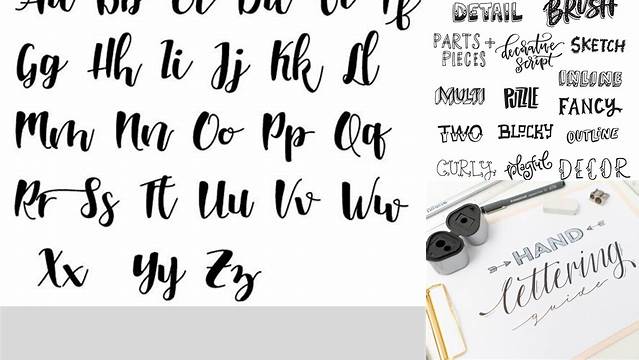
Lettering Styles & Fonts: A Comprehensive Guide
Hey guys! Ever wondered about the difference between lettering styles and fonts? Or maybe you're just looking to spice up your design game? Well, you've come to the right place! This comprehensive guide will break down different types of lettering styles and fonts, giving you the knowledge to choose the perfect one for your next project. Let's dive in!
1. Understanding the Basics of Lettering
Okay, so before we jump into the cool stuff, let's nail down the basics. Lettering, at its core, is the art of drawing letters. It's a unique piece of art where each letter is carefully crafted. Think of it as illustration, but with letters! A lettering artist pays attention to every detail, from the thickness of the strokes to the overall composition. Unlike fonts, which are pre-designed and reusable, lettering is a one-off creation. When approaching lettering, consider the message you want to convey. Is it playful? Serious? Elegant? The style of lettering should reflect the tone. Experiment with different tools like pencils, pens, brushes, or even digital drawing tablets. Practice consistency in your letterforms, but don't be afraid to break the rules and add your own personal flair. Lettering offers endless possibilities for creativity and self-expression, so embrace the process and have fun!
2. Exploring Different Font Styles
Now, let's talk about fonts! Font styles, unlike lettering, are pre-designed sets of characters that can be used repeatedly. They're like a ready-made alphabet that you can type with. Fonts come in countless styles, from classic serif fonts to modern sans-serif fonts, and everything in between. Understanding different font styles is crucial for effective communication. Serif fonts, with their little decorative strokes, often convey a sense of tradition and authority. Sans-serif fonts, on the other hand, are clean and modern, making them ideal for digital displays. When choosing a font, consider its readability, especially for body text. Experiment with different font pairings to create visual interest and hierarchy. A good rule of thumb is to pair a serif font with a sans-serif font for a balanced look. With so many options available, exploring different font styles can be overwhelming, but with practice, you'll develop an eye for choosing the perfect font for any project.
3. Serif Fonts: Timeless Elegance
Serif fonts are those classic typefaces with the little feet or strokes at the end of each letter. Think Times New Roman or Garamond. These fonts often evoke a sense of tradition, authority, and elegance. They're commonly used in books, newspapers, and other print materials. Within the serif fonts category, there are several sub-categories to explore. Old-style serifs, like Garamond, have a more organic and hand-drawn feel. Transitional serifs, like Times New Roman, offer a balance between tradition and modernity. Modern serifs, like Didot, are characterized by their high contrast and sharp serifs. When choosing serif fonts, consider the overall tone and purpose of your design. A classic serif font can add a touch of sophistication to a formal invitation, while a more playful serif font can be used for a children's book. Experiment with different serif fonts to find the perfect one for your project. Remember, the key is to choose a font that is both visually appealing and easy to read.
4. Sans-Serif Fonts: Modern Simplicity
On the flip side, we have sans-serif fonts, which are clean, modern, and lack those little decorative strokes. Think Arial or Helvetica. These fonts are often associated with simplicity, clarity, and a contemporary feel. They're commonly used in websites, logos, and other digital designs. Just like serif fonts, sans-serif fonts come in various styles. Geometric sans-serifs, like Futura, are based on precise geometric shapes. Humanist sans-serifs, like Gill Sans, have a more organic and hand-drawn feel. Grotesque sans-serifs, like Helvetica, are known for their neutral and versatile appearance. When selecting sans-serif fonts, prioritize readability, especially for body text on screens. A clean and legible sans-serif font can improve the user experience on a website or app. Experiment with different sans-serif fonts to find the perfect one for your project. Remember, a well-chosen sans-serif font can convey a sense of professionalism and modernity.
5. Script Fonts: Calligraphy and Handwriting
Script fonts mimic the fluidity and elegance of handwriting or calligraphy. They range from formal and ornate to casual and playful. Think of fonts that look like cursive writing. Script fonts can add a touch of personality and charm to your designs. However, they should be used sparingly, as they can be difficult to read in large blocks of text. There are several types of script fonts to choose from, including formal scripts, brush scripts, and casual scripts. Formal scripts are often used for wedding invitations and other elegant occasions. Brush scripts have a more textured and hand-painted feel. Casual scripts are perfect for adding a touch of whimsy to your designs. When using script fonts, make sure they are legible and appropriate for the overall tone of your project. Consider using them for headings or short phrases to add visual interest. With the right script font, you can create a unique and memorable design.
6. Display Fonts: Bold and Eye-Catching
Display fonts are designed to grab attention and make a statement. They're often used for headlines, logos, and other prominent design elements. Display fonts come in a wide variety of styles, from bold and blocky to quirky and unconventional. The key is to choose a display font that reflects the personality of your brand or project. When selecting display fonts, don't be afraid to experiment with different styles and weights. A bold and impactful display font can instantly draw the viewer's eye. However, be mindful of readability, especially at smaller sizes. Display fonts should be used sparingly and paired with a more legible font for body text. With the right display font, you can create a memorable and impactful design that stands out from the crowd. Remember to consider the overall aesthetic and message you want to convey when choosing a display font.
7. Blackletter Fonts: Gothic and Medieval
Blackletter fonts, also known as Gothic or Old English fonts, evoke a sense of history and tradition. They're characterized by their thick strokes, sharp angles, and ornate details. Blackletter fonts were commonly used in medieval manuscripts and early printed books. Today, they're often used for decorative purposes, such as logos, posters, and certificates. While blackletter fonts can add a touch of elegance and sophistication, they can also be difficult to read. Therefore, they should be used sparingly and in larger sizes. When using blackletter fonts, consider the historical context and the overall tone of your design. A blackletter font can be a great choice for a project that aims to evoke a sense of tradition or authenticity. However, it's important to ensure that the font is legible and appropriate for the target audience. With careful consideration, blackletter fonts can add a unique and memorable touch to your designs.
8. Monospace Fonts: Typewriter Style
Monospace fonts are unique because each character takes up the same amount of horizontal space. This creates a distinctive, typewriter-like appearance. Monospace fonts were originally designed for typewriters and computer terminals, where consistent character width was essential. Today, they're often used for code, technical documentation, and retro-themed designs. While monospace fonts may not be the most visually appealing for large blocks of text, they can be effective for creating a sense of order and precision. When using monospace fonts, consider the context and the overall message you want to convey. A monospace font can be a great choice for a project that aims to evoke a sense of technology or authenticity. However, it's important to ensure that the font is legible and appropriate for the target audience. With careful consideration, monospace fonts can add a unique and functional touch to your designs.
9. Handwritten Fonts: Personal Touch
Handwritten fonts bring a personal and informal touch to any design. These fonts mimic the look of actual handwriting, adding warmth and authenticity. They range from neat and legible to messy and whimsical, offering a variety of styles to suit different projects. Handwritten fonts are perfect for invitations, greeting cards, and designs that need a human touch. The key to using handwritten fonts effectively is to ensure readability. While a bit of imperfection can add charm, the font should still be easy to read. Consider using handwritten fonts for headings or short phrases to add visual interest. Pair them with a simpler, more legible font for the main body of text. Experiment with different handwritten fonts to find one that matches the tone and style of your project. With the right choice, you can create a design that feels personal and inviting.
10. Decorative Fonts: Unique and Artistic
Decorative fonts are all about making a statement. These fonts are designed to be eye-catching and unique, often incorporating elaborate designs and artistic elements. Decorative fonts can transform a simple design into something truly special, adding personality and flair. However, they should be used sparingly, as they can be overwhelming if overused. Decorative fonts are perfect for headlines, posters, and designs that need to stand out. When choosing a decorative font, consider the overall style and message of your project. A whimsical font might be great for a children's book, while a bold and geometric font could work well for a modern poster. Always prioritize readability, even with decorative fonts. The font should be legible enough to convey the message clearly. Pair decorative fonts with simpler fonts for the body text to balance the design. With careful selection, decorative fonts can add a unique and artistic touch to your creations.
11. Vintage Fonts: Retro Charm
Vintage fonts are designed to evoke the look and feel of past eras. These fonts draw inspiration from different historical periods, such as the Art Deco era, the mid-century modern period, and the Victorian era. Vintage fonts add a touch of nostalgia and retro charm to any design. They are perfect for projects that aim to capture a specific historical aesthetic. Vintage fonts come in a variety of styles, from elegant and ornate to bold and industrial. When choosing a vintage font, consider the specific era you want to emulate. Research popular typefaces from that period and look for fonts that capture the same essence. Pay attention to details such as serifs, stroke weight, and overall letterforms. Vintage fonts can be used for logos, posters, websites, and any project that needs a retro touch. Pair them with vintage-inspired colors and design elements to create a cohesive and authentic look. With the right vintage font, you can transport your audience back in time.
12. Modern Fonts: Sleek and Minimalist
Modern fonts are characterized by their clean lines, geometric shapes, and minimalist design. These fonts are often sans-serif, meaning they lack the small decorative strokes found in serif fonts. Modern fonts convey a sense of simplicity, sophistication, and innovation. They are perfect for projects that aim to project a contemporary and forward-thinking image. Modern fonts are widely used in logos, websites, and branding materials. They are versatile and can be adapted to a variety of design styles. When choosing a modern font, consider the overall aesthetic of your project. Look for fonts that are legible, balanced, and visually appealing. Experiment with different weights and styles to find the perfect fit. Modern fonts pair well with clean layouts, minimalist designs, and bold colors. With the right modern font, you can create a design that is both stylish and functional.
13. Calligraphy Fonts: Elegant Script
Calligraphy fonts are designed to mimic the elegant and flowing strokes of traditional calligraphy. These fonts are often used for invitations, wedding announcements, and other formal occasions. Calligraphy fonts add a touch of sophistication and grace to any design. They are characterized by their ornate letterforms, delicate strokes, and flourishes. Calligraphy fonts come in a variety of styles, from traditional copperplate to modern brush lettering. When choosing a calligraphy font, consider the overall tone and style of your project. Look for fonts that are legible, balanced, and visually appealing. Avoid using calligraphy fonts for large blocks of text, as they can be difficult to read. Instead, use them for headings, titles, and short phrases. Pair calligraphy fonts with simpler fonts for the body text to create a balanced and harmonious design. With the right calligraphy font, you can add a touch of elegance and sophistication to your creations.
14. Brush Lettering Fonts: Hand-Painted Style
Brush lettering fonts capture the organic and textured look of hand-painted lettering. These fonts are created by mimicking the strokes of a brush pen or paintbrush. Brush lettering fonts add a personal and artistic touch to any design. They are perfect for projects that need a handmade or artisanal feel. Brush lettering fonts come in a variety of styles, from bold and expressive to delicate and refined. When choosing a brush lettering font, consider the overall style and message of your project. Look for fonts that are legible, authentic, and visually appealing. Avoid using brush lettering fonts for large blocks of text, as they can be difficult to read. Instead, use them for headings, logos, and short phrases. Pair brush lettering fonts with simpler fonts for the body text to create a balanced and harmonious design. With the right brush lettering font, you can add a unique and artistic touch to your creations.
15. Slab Serif Fonts: Bold and Strong
Slab serif fonts are characterized by their thick, block-like serifs. These fonts are bold, strong, and convey a sense of authority and stability. Slab serif fonts were originally developed for advertising and display purposes in the 19th century. They are often used for headlines, posters, and branding materials. Slab serif fonts come in a variety of styles, from classic and traditional to modern and geometric. When choosing a slab serif font, consider the overall tone and style of your project. Look for fonts that are legible, impactful, and visually appealing. Slab serif fonts pair well with both serif and sans-serif fonts, depending on the desired effect. They can be used to create a bold and eye-catching design that commands attention. With the right slab serif font, you can make a strong and lasting impression.
16. Geometric Fonts: Precision and Order
Geometric fonts are based on precise geometric shapes such as circles, squares, and triangles. These fonts are clean, modern, and convey a sense of order and precision. Geometric fonts are often used in logos, websites, and branding materials that aim to project a sense of innovation and sophistication. Geometric fonts come in a variety of styles, from minimalist and understated to bold and expressive. When choosing a geometric font, consider the overall aesthetic of your project. Look for fonts that are legible, balanced, and visually appealing. Geometric fonts pair well with clean layouts, minimalist designs, and bold colors. They can be used to create a design that is both stylish and functional. With the right geometric font, you can achieve a sleek and contemporary look.
17. Distressed Fonts: Worn and Aged
Distressed fonts are designed to look worn, aged, and imperfect. These fonts often feature textures, scratches, and other imperfections that give them a vintage or grunge aesthetic. Distressed fonts are perfect for projects that need a touch of authenticity, nostalgia, or raw energy. They are often used in posters, t-shirts, and branding materials that aim to convey a sense of history or rebellion. Distressed fonts come in a variety of styles, from subtle and understated to bold and exaggerated. When choosing a distressed font, consider the overall tone and style of your project. Look for fonts that are legible, visually appealing, and appropriate for the target audience. Distressed fonts pair well with vintage-inspired colors, textures, and design elements. With the right distressed font, you can create a design that is both unique and memorable.
18. Pixel Fonts: Retro Gaming Style
Pixel fonts, also known as bitmap fonts, are designed to mimic the look of text on early computer screens and video games. These fonts are characterized by their blocky, pixelated appearance. Pixel fonts are perfect for projects that aim to evoke a sense of nostalgia for the 8-bit and 16-bit era. They are often used in video games, retro-themed websites, and designs that pay homage to classic computer graphics. Pixel fonts come in a variety of styles, from simple and functional to decorative and expressive. When choosing a pixel font, consider the overall style and message of your project. Look for fonts that are legible, authentic, and visually appealing. Pixel fonts can be used for headings, body text, and other design elements. They pair well with retro-inspired colors, graphics, and sound effects. With the right pixel font, you can transport your audience back to the golden age of gaming.
19. Outline Fonts: Minimalist Design
Outline fonts feature characters that are defined by their outlines, with the interior space left empty. These fonts are minimalist, modern, and convey a sense of simplicity and elegance. Outline fonts are often used in logos, websites, and branding materials that aim to project a clean and sophisticated image. Outline fonts come in a variety of styles, from geometric and angular to rounded and organic. When choosing an outline font, consider the overall aesthetic of your project. Look for fonts that are legible, balanced, and visually appealing. Outline fonts pair well with bold colors, clean layouts, and minimalist designs. They can be used to create a design that is both stylish and functional. With the right outline font, you can achieve a sleek and contemporary look.
20. Shadow Fonts: Depth and Dimension
Shadow fonts create the illusion of depth and dimension by adding a shadow effect to the characters. These fonts can be used to make text stand out and create a sense of visual interest. Shadow fonts are often used in headlines, posters, and branding materials that aim to grab attention. Shadow fonts come in a variety of styles, from subtle and understated to bold and dramatic. When choosing a shadow font, consider the overall tone and style of your project. Look for fonts that are legible, visually appealing, and appropriate for the target audience. Shadow fonts pair well with contrasting colors and simple backgrounds. They can be used to create a design that is both eye-catching and impactful. With the right shadow font, you can add depth and dimension to your creations.
21. Combining Lettering and Fonts
One of the best ways to create unique and visually appealing designs is by combining lettering and fonts. Lettering, being a hand-drawn art form, brings a personal and bespoke touch, while fonts offer consistency and readability. When combining lettering and fonts, consider using lettering for headlines or short phrases to add a distinctive flair, and then use a clean and legible font for the body text. This approach creates a balanced and harmonious design. The key is to choose fonts that complement the style of your lettering. For example, if your lettering is whimsical and playful, you might pair it with a simple sans-serif font. If your lettering is elegant and formal, you might choose a classic serif font. Experiment with different combinations to find what works best for your project. With careful planning and a good eye for design, you can create stunning designs by combining lettering and fonts.
22. Choosing the Right Font for Your Project
Choosing the right font for your project is a critical step in the design process. The font you select can significantly impact the overall look and feel of your design, as well as its readability and effectiveness. When choosing a font, consider the purpose of your project, the target audience, and the message you want to convey. A formal invitation might call for an elegant script or serif font, while a website for a tech company might benefit from a clean and modern sans-serif font. Also, think about readability, especially for body text. A font that is difficult to read will frustrate your audience and detract from your message. Experiment with different fonts and font pairings to find what works best for your project. Use online resources and font libraries to explore a wide range of options. With careful consideration and a good understanding of typography, you can choose the right font to enhance your design and achieve your desired results.
23. The Importance of Kerning and Tracking
Kerning and tracking are essential aspects of typography that can significantly impact the readability and visual appeal of your text. Kerning refers to the adjustment of the space between individual letter pairs, while tracking refers to the uniform adjustment of the space between all letters in a line of text. Proper kerning and tracking ensures that the letters are evenly spaced and visually balanced, creating a more harmonious and professional look. Poor kerning and tracking can make text look awkward and difficult to read. Many design software programs offer automatic kerning and tracking features, but it's important to manually adjust these settings to achieve the best results. Pay attention to letter pairs that tend to have spacing issues, such as AV, WA, and TY. Experiment with different kerning and tracking values to find what looks best for your font and layout. With careful attention to detail, you can improve the overall quality of your typography and create a more polished and professional design.
24. Using Font Pairing Effectively
Using font pairing effectively is an art that can elevate your design from good to great. Font pairing involves combining two or more fonts in a way that is visually appealing and enhances the overall message of your design. The goal is to create a harmonious balance between the different fonts, rather than a jarring or conflicting effect. A common approach is to pair a serif font with a sans-serif font. For example, you might use a serif font for headings and a sans-serif font for body text. This creates a clear visual hierarchy and improves readability. When pairing fonts, consider the contrast between the different typefaces. A font with a bold and distinctive personality might pair well with a more neutral and understated font. Experiment with different combinations to find what works best for your project. Use online resources and font pairing tools to get inspiration and guidance. With careful planning and a good eye for design, you can use font pairing effectively to create stunning and impactful designs.
25. The Role of Typography in Branding
Typography plays a crucial role in branding. The fonts you choose for your logo, website, and marketing materials can significantly impact how your brand is perceived by the public. Typography helps to convey your brand's personality, values, and overall message. A clean and modern font might be ideal for a tech company, while a classic serif font might be more appropriate for a law firm. When branding, it's important to choose fonts that are consistent with your brand's identity and that appeal to your target audience. Consider the readability, versatility, and overall visual appeal of the fonts you select. Use typography to create a cohesive and memorable brand image. Experiment with different font pairings and design elements to find what works best for your brand. With careful planning and a good understanding of typography, you can use typography to strengthen your brand and make a lasting impression.
26. Free vs. Paid Fonts: What's the Difference?
When it comes to choosing fonts, you'll often encounter the choice between free vs. paid fonts. Both options have their advantages and disadvantages, and the best choice for you will depend on your specific needs and budget. Free fonts are readily available online and can be a great option for personal projects or for designers on a tight budget. However, free fonts may have limited character sets, lower quality designs, and unclear licensing terms. Paid fonts, on the other hand, typically offer higher quality designs, more extensive character sets, and clear licensing terms. Paid fonts may also come with additional features such as multiple weights, styles, and language support. When choosing between free vs. paid fonts, consider the importance of the project, the budget available, and the desired level of quality and features. It's always a good idea to carefully review the licensing terms of any font you use, whether it's free or paid, to ensure that you're using it in compliance with the terms of use.
27. Font Licensing: Understanding the Rules
Font licensing is an important aspect of typography that is often overlooked. Font licenses dictate how you are allowed to use a particular font. It's crucial to understand the licensing terms before using a font in your projects, as using a font in violation of its license can result in legal consequences. Font licenses typically specify the types of projects in which the font can be used, such as personal projects, commercial projects, or embedding in websites or apps. Some licenses may also restrict the number of users who can access the font or the number of devices on which it can be installed. Always read the font license carefully before using a font in your projects. If you're unsure about the licensing terms, contact the font designer or foundry for clarification. By understanding and complying with font licensing rules, you can avoid legal issues and ensure that you're using fonts ethically and responsibly.
28. Font Management Tools: Staying Organized
Font management tools are essential for designers who work with a large number of fonts. These tools help you stay organized, activate and deactivate fonts as needed, and avoid font conflicts. Font management tools typically allow you to create font sets, preview fonts, and search for fonts based on various criteria. Some font management tools also offer features such as automatic font activation, font repair, and font synchronization across multiple devices. Using a font management tool can save you time and hassle and ensure that your fonts are always available when you need them. There are many different font management tools available, both free and paid. Choose a tool that meets your specific needs and budget. With a good font management tool in place, you can streamline your workflow and keep your font library under control.
29. The Future of Lettering and Fonts
The future of lettering and fonts is constantly evolving, driven by technological advancements and changing design trends. New tools and techniques are emerging that are making it easier than ever to create custom lettering and fonts. Artificial intelligence (AI) is also playing a role, with AI-powered tools that can generate fonts and lettering based on user input. In the future, we can expect to see even more personalized and dynamic typography, with fonts that adapt to different contexts and user preferences. Variable fonts, which allow for a single font file to contain multiple weights, styles, and variations, are also gaining popularity. This offers greater flexibility and efficiency for designers. The future of lettering and fonts is bright, with endless possibilities for creativity and innovation.
30. Resources for Learning More About Typography
If you're interested in learning more about typography, there are many excellent resources available online and in print. Websites like Fonts.com, MyFonts.com, and Typewolf offer a wealth of information about fonts, typography, and design trends. Books like "The Elements of Typographic Style" by Robert Bringhurst and "Thinking with Type" by Ellen Lupton are considered classics in the field. Online courses and tutorials on platforms like Skillshare and Udemy can provide you with hands-on training in typography and lettering. Attending workshops and conferences is another great way to learn from industry experts and network with other designers. By taking advantage of these resources, you can deepen your knowledge of typography and improve your design skills. Remember that learning typography is an ongoing process, so stay curious, experiment with different styles, and never stop exploring the world of letters.